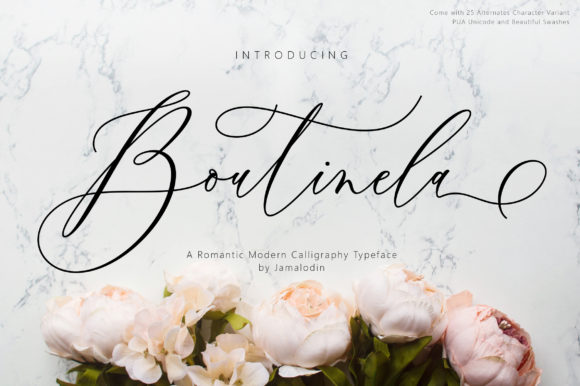
The Boutinela Font: Elevating Your Designs with Elegance
I still remember the frustration of working on a project, pouring my heart and soul into it, only to feel like something was missing. The design was beautiful, but the font just wasn’t quite right. It was like trying to put a square peg in a round hole. I’ve been there, and I’m sure many of you have too. That’s when I discovered the Boutinela font, and let me tell you, it was like a breath of fresh air. With its flowing, handwritten style and elegant touch, it’s the perfect addition to any creative project.
- ✨ The elegant, flowing script that adds a touch of sophistication to any design
- 💫 Perfect for a variety of projects, from branding to invitations and more
- 🎨 Highly versatile and can be used in a range of design contexts
While the Boutinela font is incredibly versatile and beautiful, there are a few things to keep in mind. ⚠️ Some users may find that the font can be a bit tricky to pair with other fonts, so it’s essential to experiment and find the right combination. 🤔 Additionally, while the font is PUA encoded, some users may need to access the glyphs and swashes through specific software or plugins.
The Boutinela font was created with the intention of capturing the elegance and sophistication of handwritten scripts. Its designer drew inspiration from the flowing lines and curves of traditional calligraphy, combined with a modern, fresh approach. The result is a font that’s both timeless and contemporary, perfect for a wide range of design applications.
Q: What is PUA encoding, and how does it benefit the Boutinela font?
A: PUA (Private Use Area) encoding allows for easy access to glyphs and swashes, making it simpler to use the font’s advanced features.
Q: Is the Boutinela font suitable for body text?
A: While the Boutinela font is beautiful, it’s best suited for headings and titles. For body text, a clearer, more legible font may be more suitable.